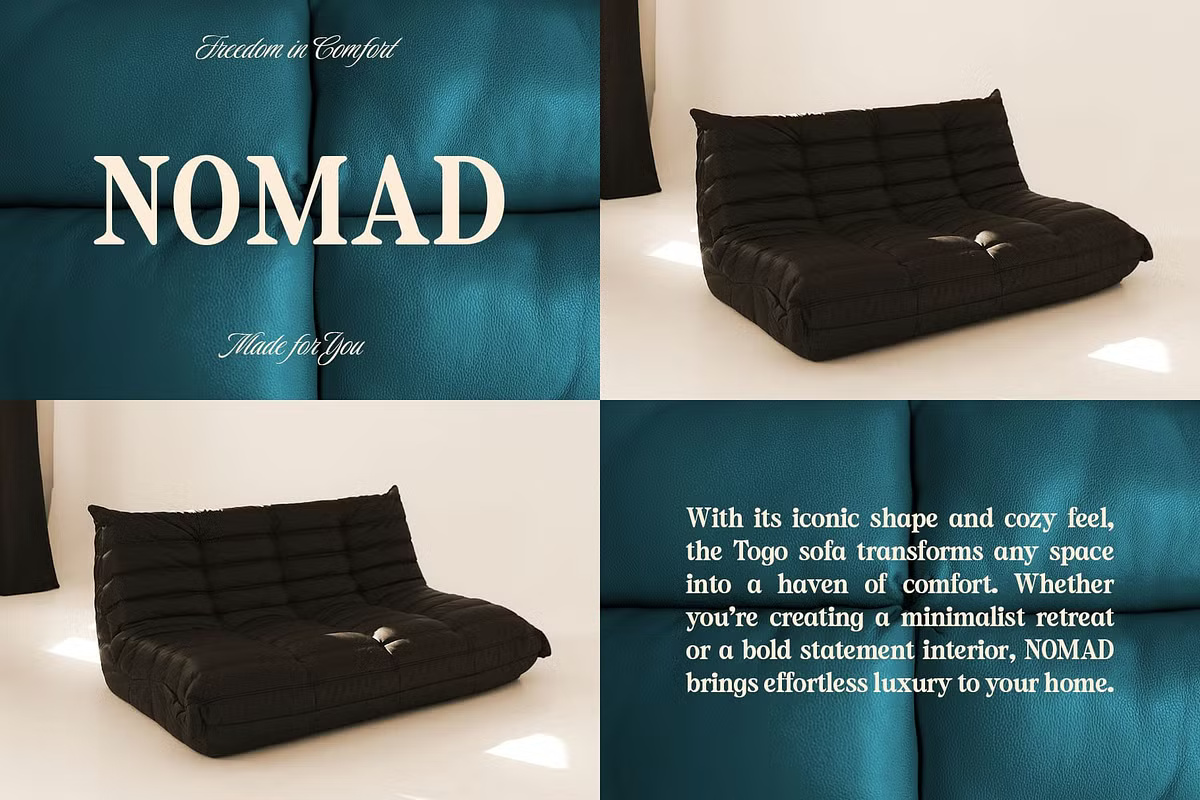
CS Monalisa Font
CS Monalisa is a sophisticated serif typeface that balances elegance with softness, even at extreme display sizes. Its defining feature—rounded terminals—adds warmth and approachability to the sharp serif structure. This detail makes the font easy on the eyes while maintaining a refined, timeless appeal, making it a perfect choice for a wide range of high-end and creative projects.
Ideal for premium branding, fashion labels, editorial spreads, and upscale product packaging, CS Monalisa brings a modern yet timeless feel. Whether used in luxury logos, wedding invitations, book covers, or lifestyle magazines, this typeface exudes sophistication and charm.